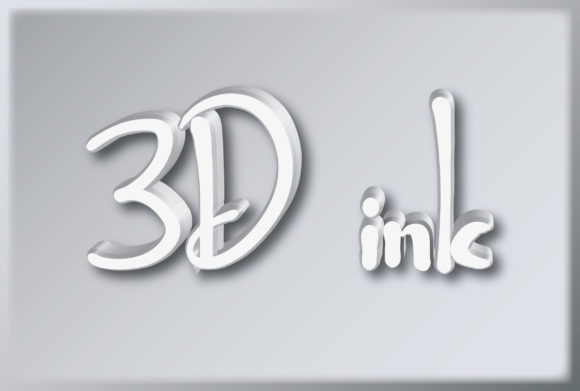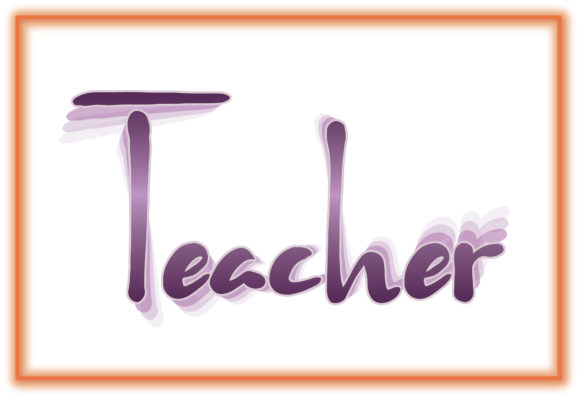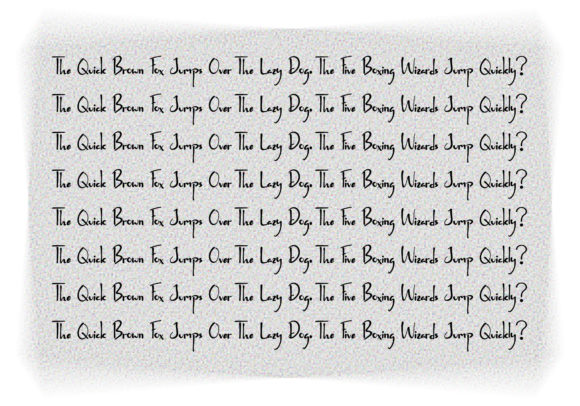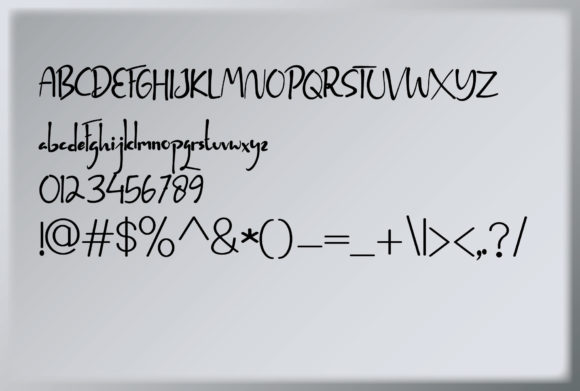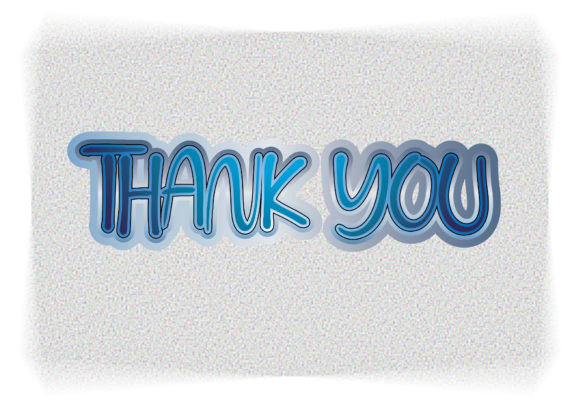
Student Font
About Student Font
Student is a modern and simple handwritten font. It has a clean, thin and smooth vibe and it will be a hit for any design that you want to add it to.